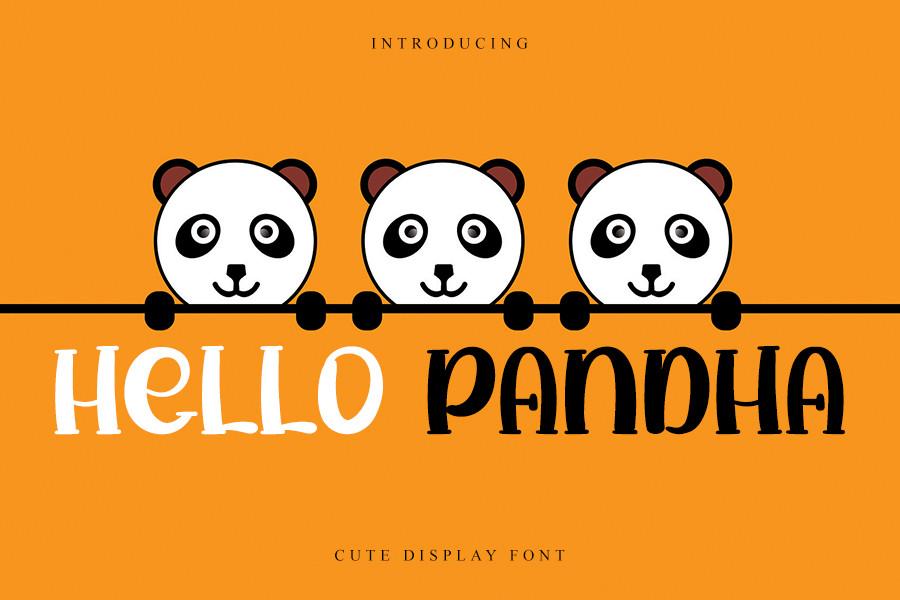
Hello Pandha Font Description
Hello Pandha is a simple and casual display font, carefully designed to become a true favorite. It maintains its chic calligraphic influences while feeling trendy and fresh. Fall in love with it and bring your projects to the highest levels!